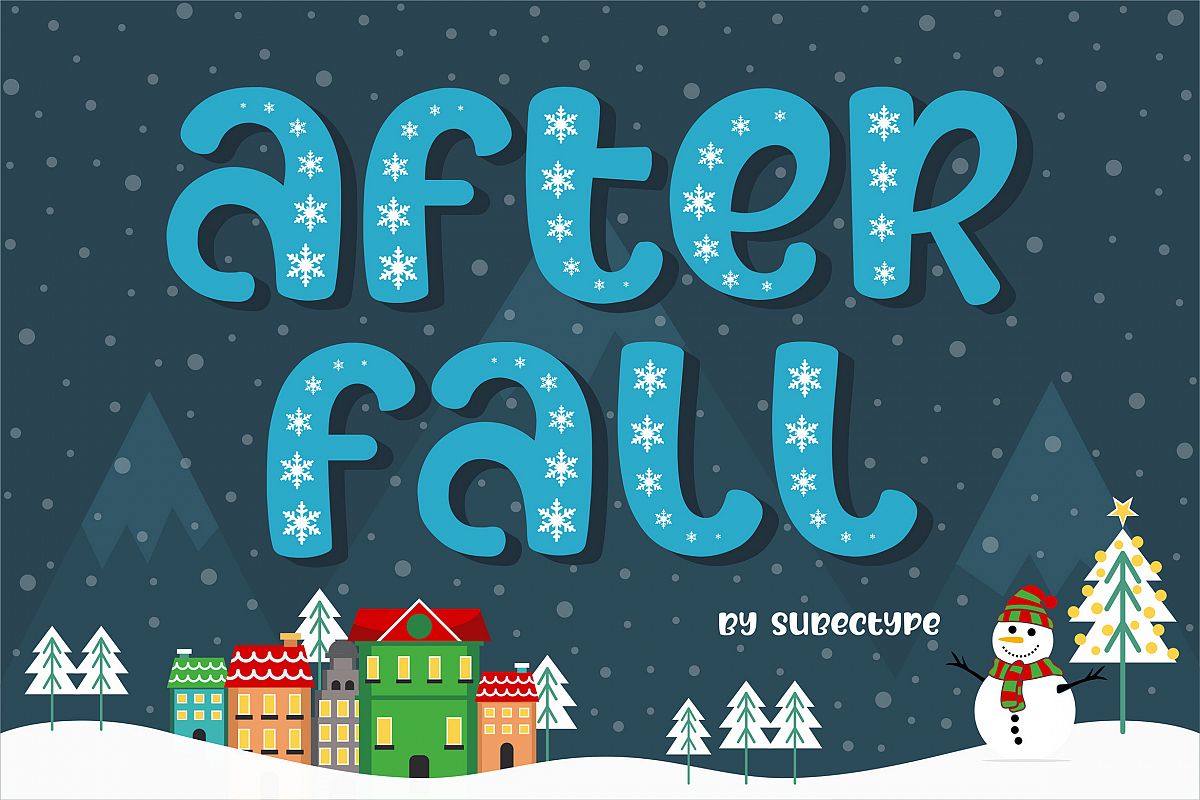
After Fall Winter and Xmas Font
After Fall Regular
After Fall Regulars
After Fall Ornament
Christmas is coming soon! so Introducing my new font about christmas. Here is "After Fall Font"
After fall is an lovely display font. It comes in a regular version
and ornament/decorative version, which can be combined perfectly! The Ornament version
includes sparkling snow which will give your design a cute and playful
touch. After Fall is a bold decorative font perfect for this christmas!